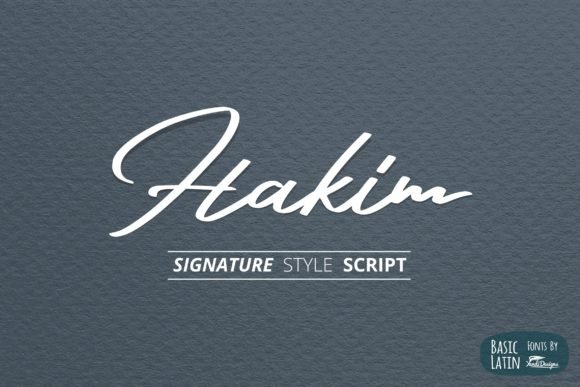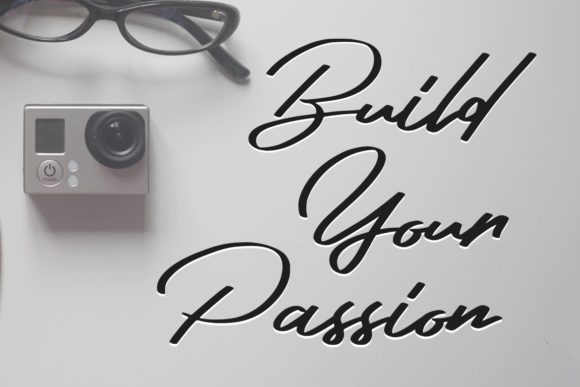
The Perfect Touch of Elegance: Hakim Font
You’ve got that moment when the creative spark hits – the idea for the perfect logo, the perfect invitation, or the perfect t-shirt design. The vision is clear, but the right tool to bring it to life is missing. That’s where the Hakim Font comes in – a beautiful, elegant handwritten font that adds a touch of luxury to any project.
With the Hakim Font, you can give your designs a unique and sophisticated feel that sets them apart from the ordinary. Whether you’re a professional designer or a creative enthusiast, this font is a valuable addition to your toolkit. Its versatility and beauty make it perfect for a wide range of applications, from logos and invitations to t-shirt designs and more.
Hakim Font Key Features
- Font Family: Hakim Font is a unique, modern, and elegant font family designed to cater to various design needs.
- Size: Hakim Font comes in 6 weights, ranging from Light to Extra Bold, providing versatility for various design applications.
- Unique Characteristics: The Hakim Font family features distinctive letterforms, unique ligatures, and a wide range of language support, making it an ideal choice for designers seeking a modern and sophisticated look.
Hakim Font Review
I recently had the chance to work with the Hakim Font, and I must say it’s been an interesting experience. Here’s my honest review.
- The Hakim Font has a unique and elegant feel to it. Its script-like design makes it perfect for creative and artistic projects.
- The font’s cursive nature makes it easy to read, especially in body text. It’s a great choice for anyone looking for a font that’s both stylish and readable.
- The font family is quite extensive, offering a wide range of weights and styles to choose from. This makes it easy to find the perfect version to suit your project’s needs.
- One of the main limitations of the Hakim Font is its lack of clarity at smaller font sizes. It can become difficult to read if not used correctly.
- The font may not be the best choice for projects that require a more modern or minimalist aesthetic. Its ornate design can feel overwhelming in certain contexts.
Overall, the Hakim Font is a solid choice for creative projects that require a unique and elegant touch. While it may have some limitations, it’s definitely worth considering for the right project. With careful use, the Hakim Font can add a touch of sophistication and style to your design work.
Use Hakim Font in conjunction with other modern fonts to create a cohesive and stylish design. Experiment with different font sizes and colors to add visual interest. Hakim Font is particularly well-suited for creating headings and titles.
Hakim Font is commonly used in modern and minimalist designs, such as logos, business cards, and social media graphics. It’s also a great choice for creating elegant and sophisticated typography in documents and presentations.